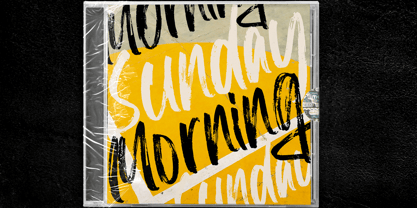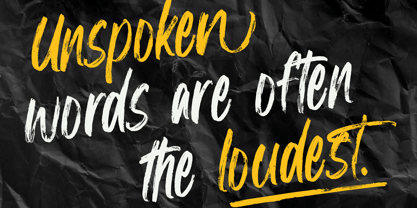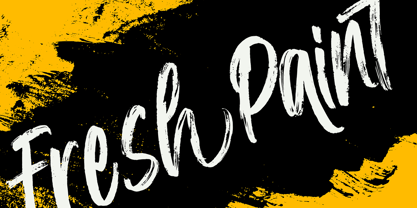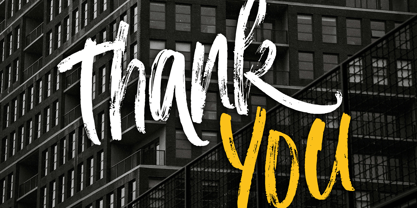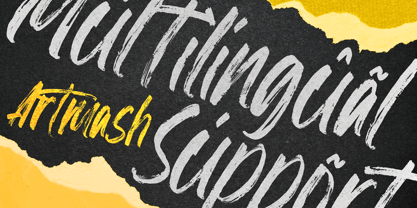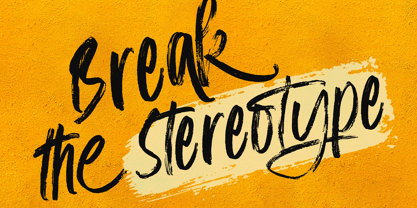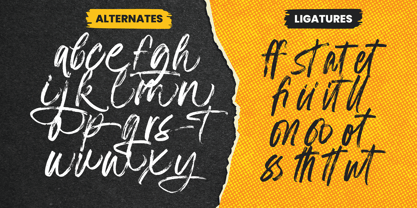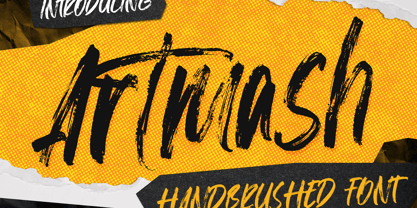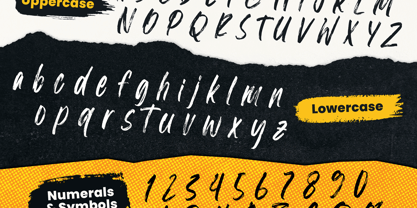
Artmash
by Krafted
The Artmash Font Family was designed by Heri Imanudin and published by Krafted. Artmash contains 1 styles. More about this family
Meet Artmash, a bold handbrushed font bursting with personality and texture. Perfect for posters, merch, branding, or anything that needs a creative punch, Artmash blends raw brush strokes with modern edge.
Every letter feels handmade and full of attitude, just customize, scale, and let your words shout with style. It’s messy, it’s fun, it’s unforgettable.